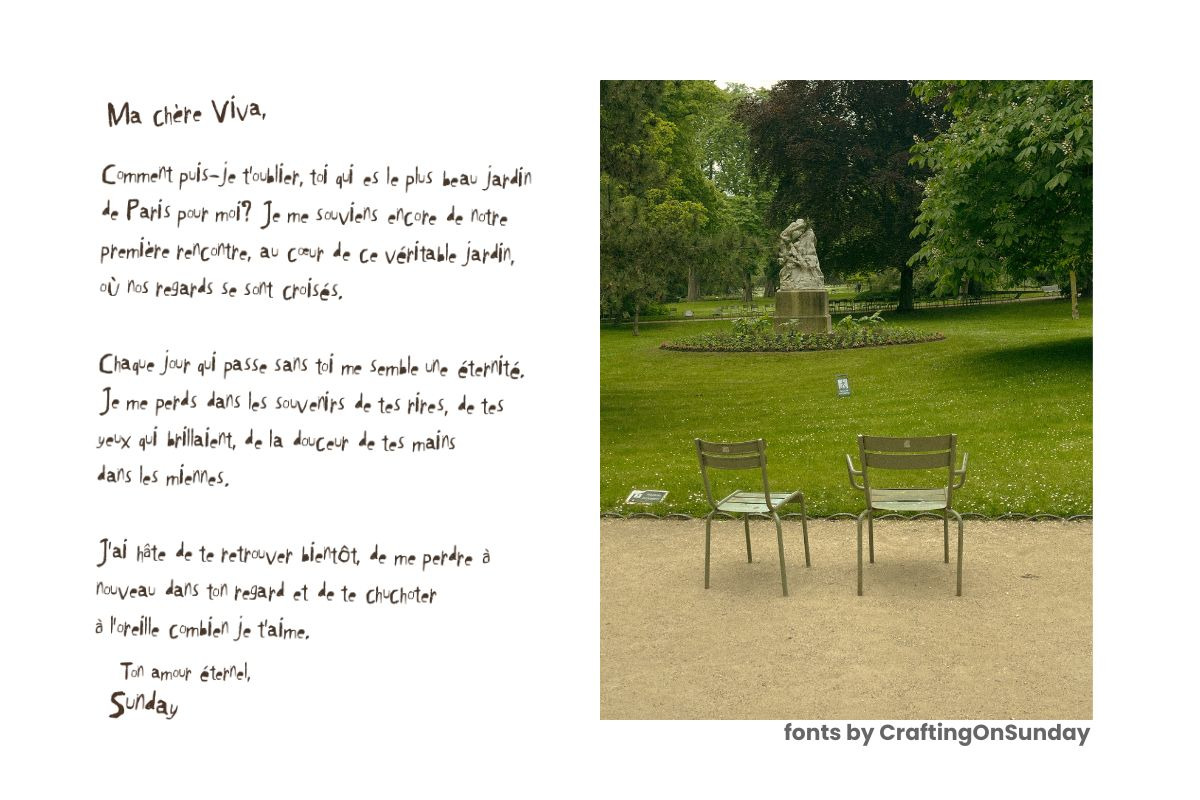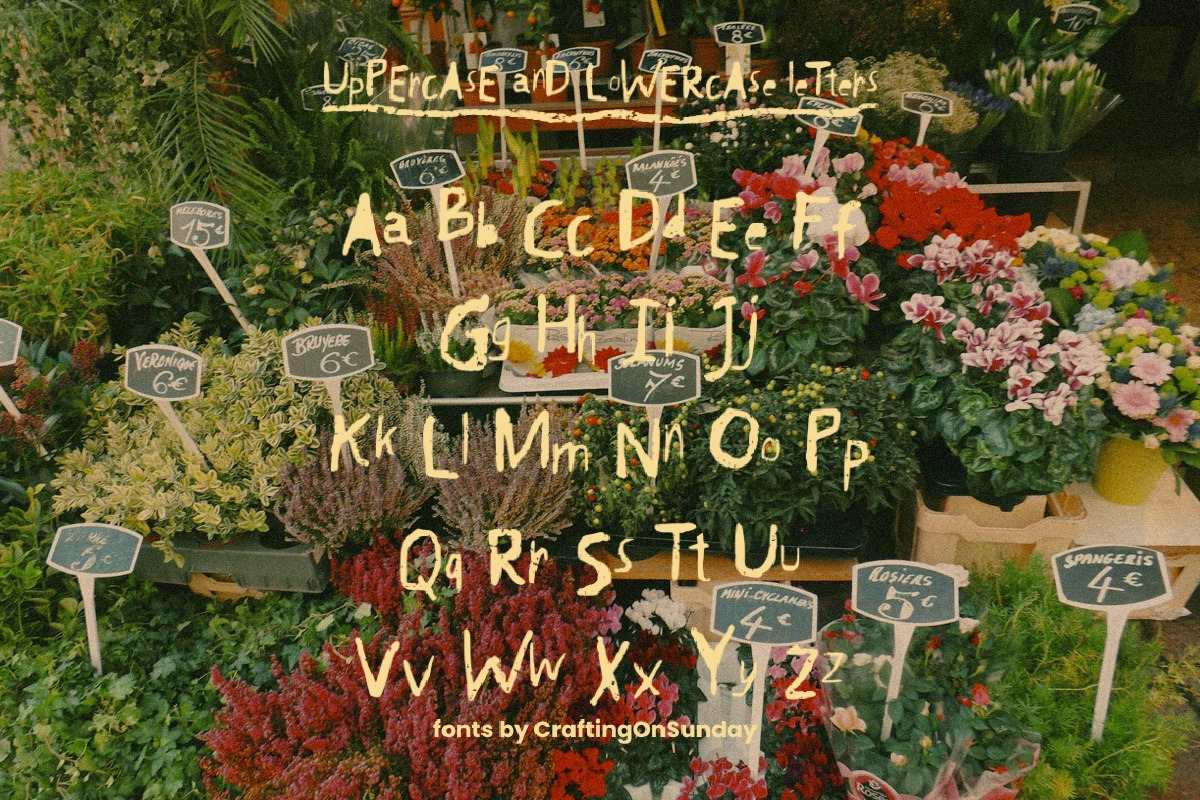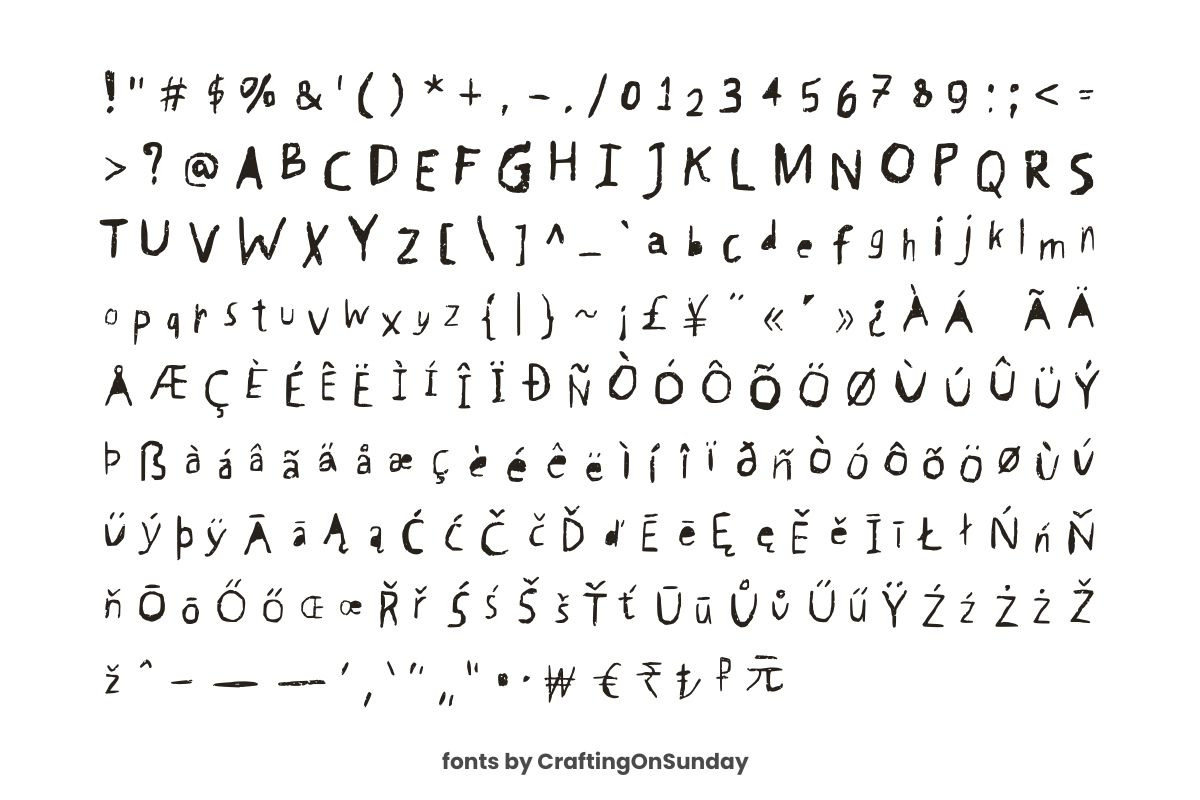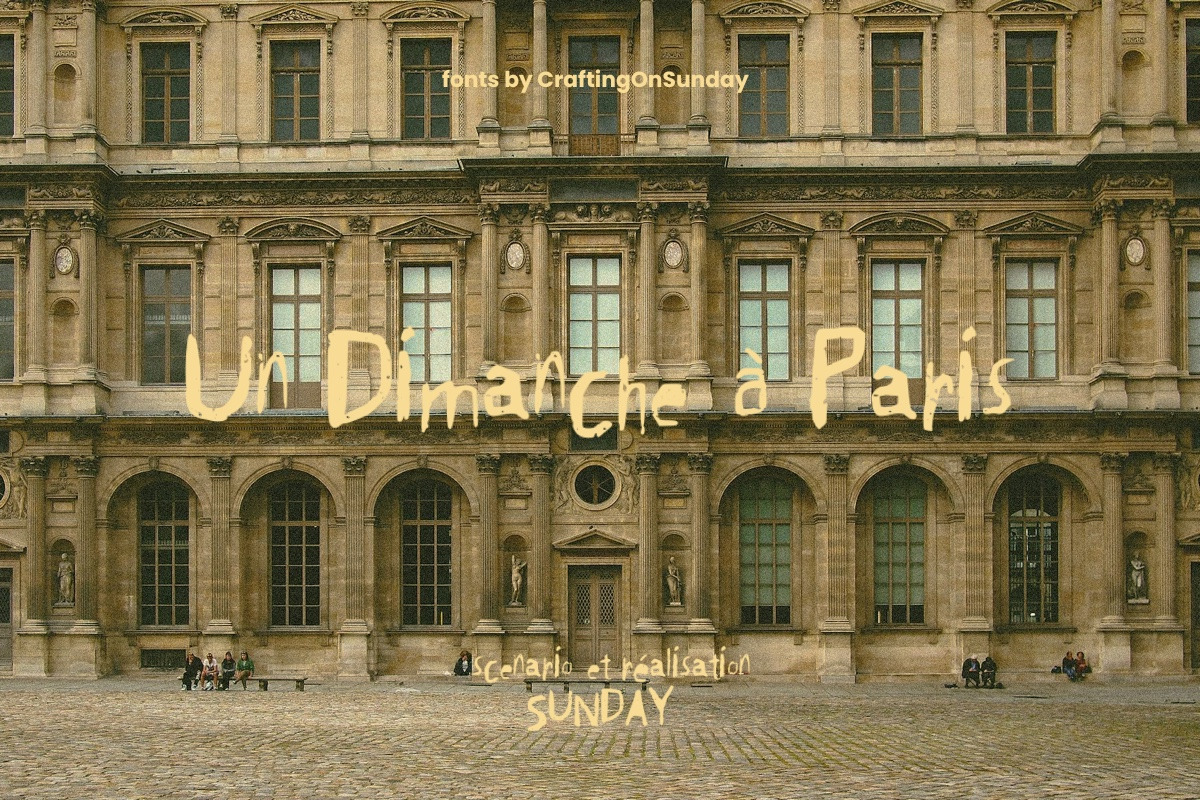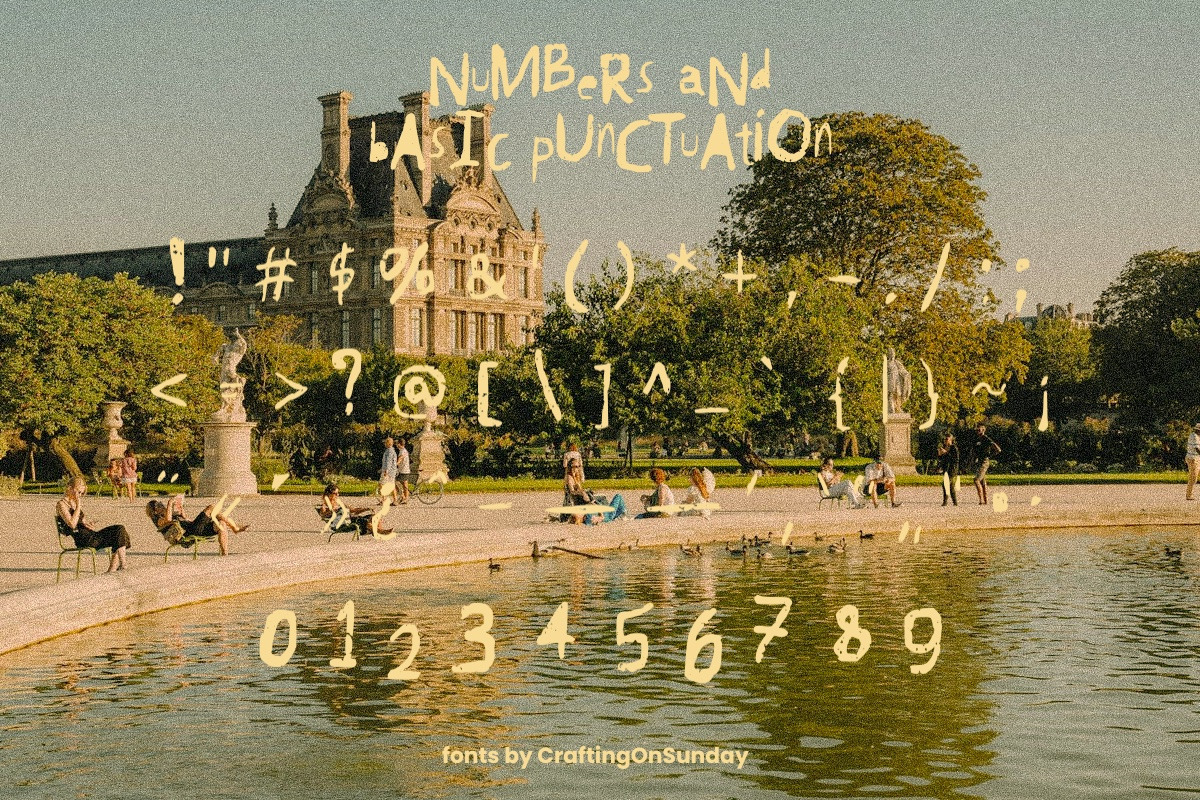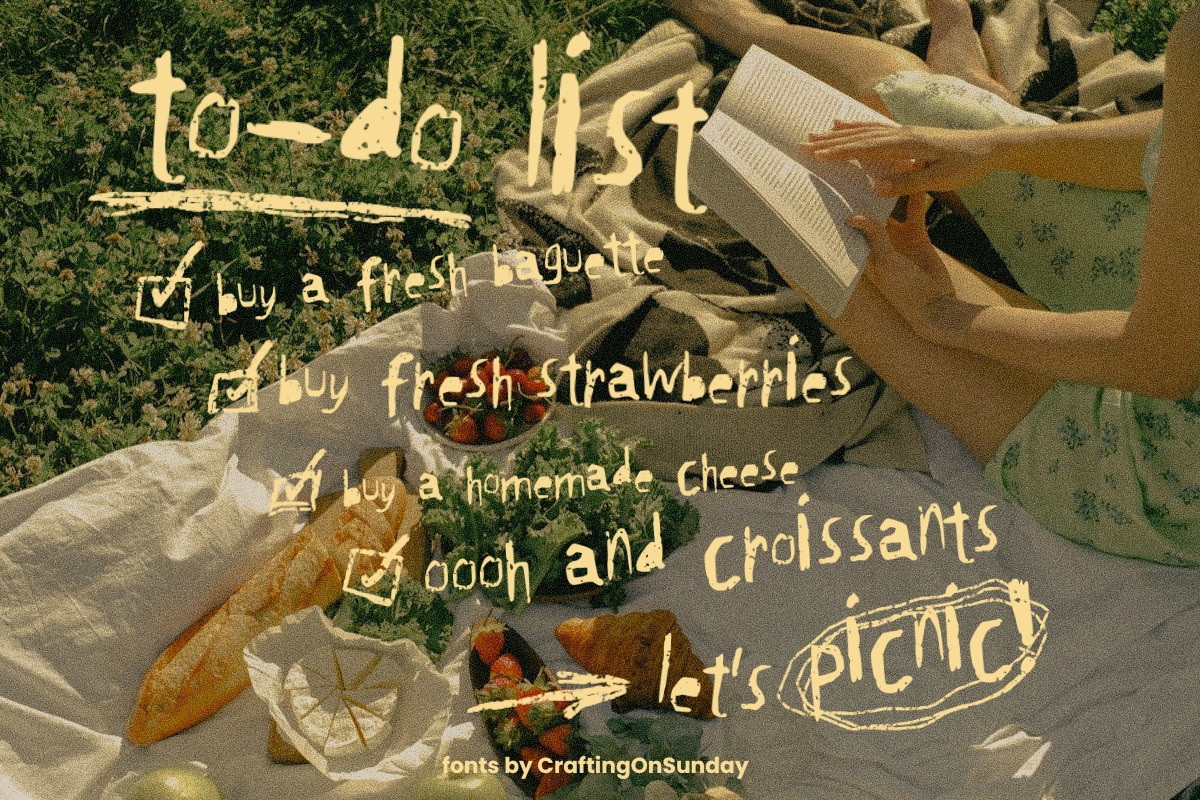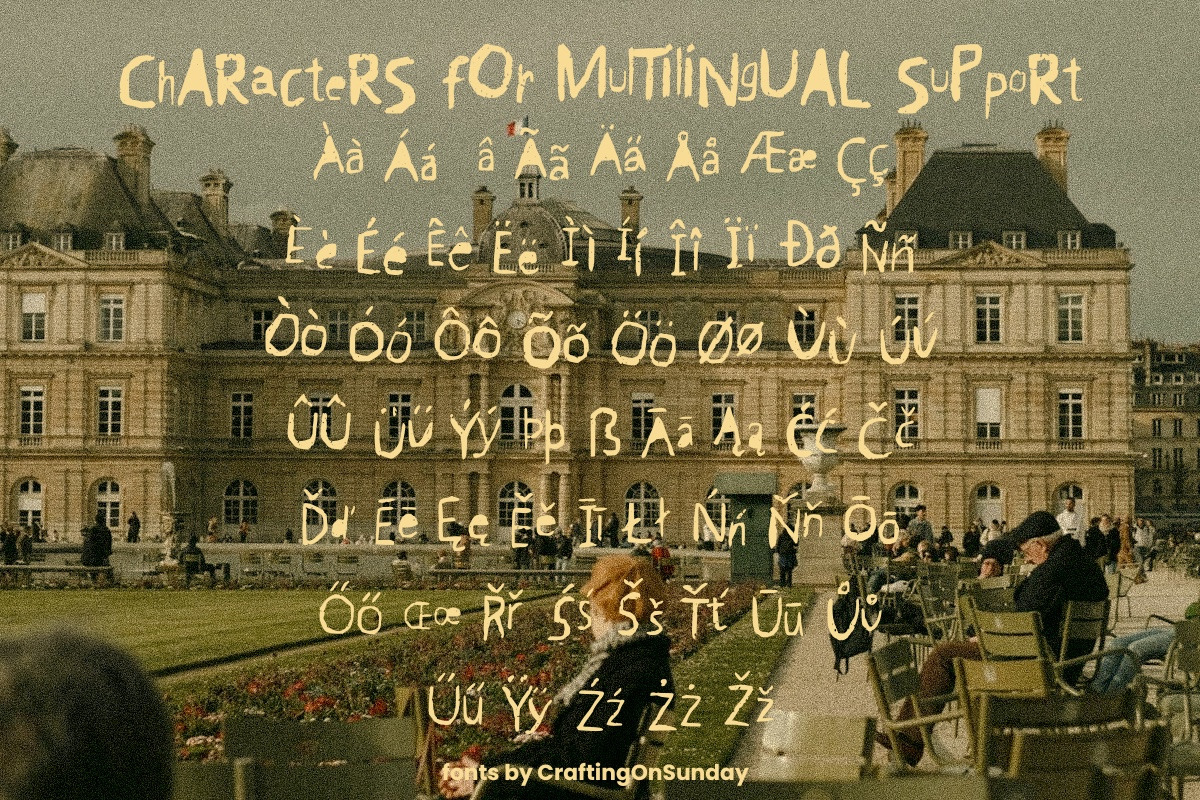
Crayon Texture Handwritten
This handwritten font is carefully drawn by hand to bring a playful, childlike charm to your designs. Its unique pencil texture adds a doodle-like vibe, making it perfect for projects that need a fun, quirky, and creative touch. Whether you’re designing for kids, creating cheerful branding, or crafting personal stationery, this font adds a cool yet whimsical style. It supports multiple languages, including Czech, Danish, Dutch, English, Finnish, French, German, Hungarian, Icelandic, Irish, Italian, Polish, Portuguese, Spanish, and Swedish, ensuring versatility for global use.
Features include:
- Uppercase and lowercase letters
- Numbers and basic punctuation
- Common currency symbols: ₩ € ₹ ₺ ₽ 元 £ ¥
- Accents and Characters for multilingual support
Perfect for playful logos, posters, social media graphics, or anything needing a touch of childlike fun and cool creativity!